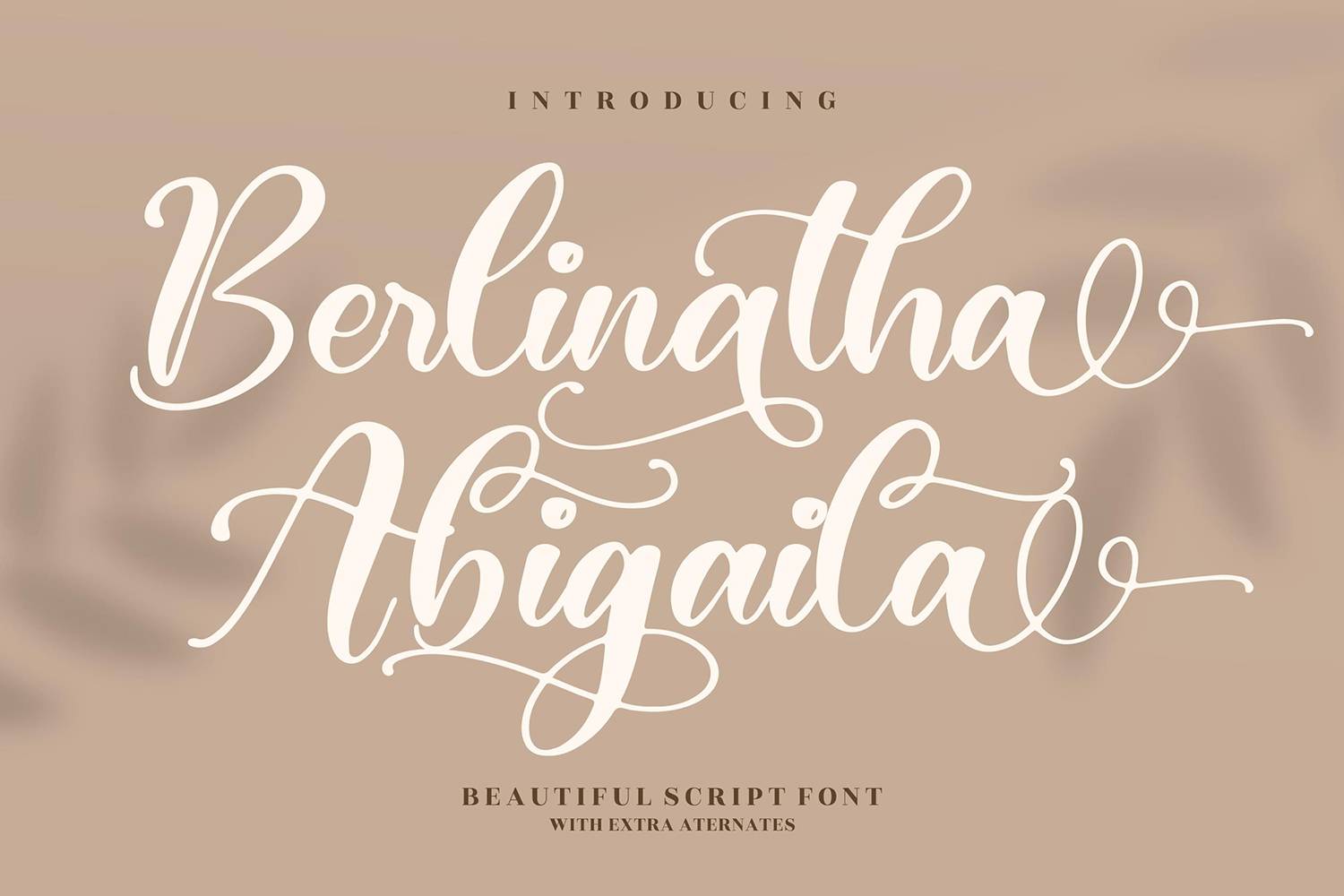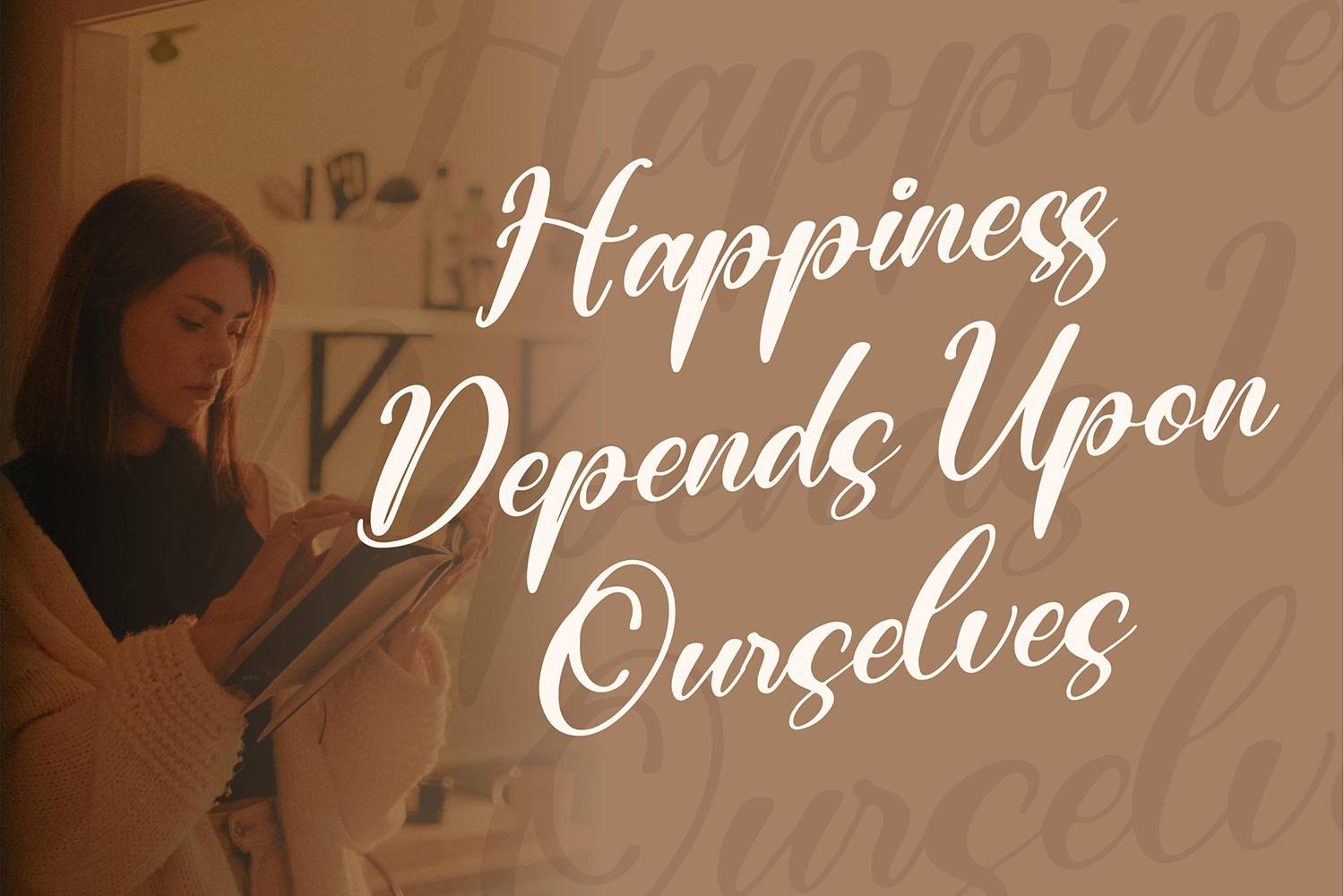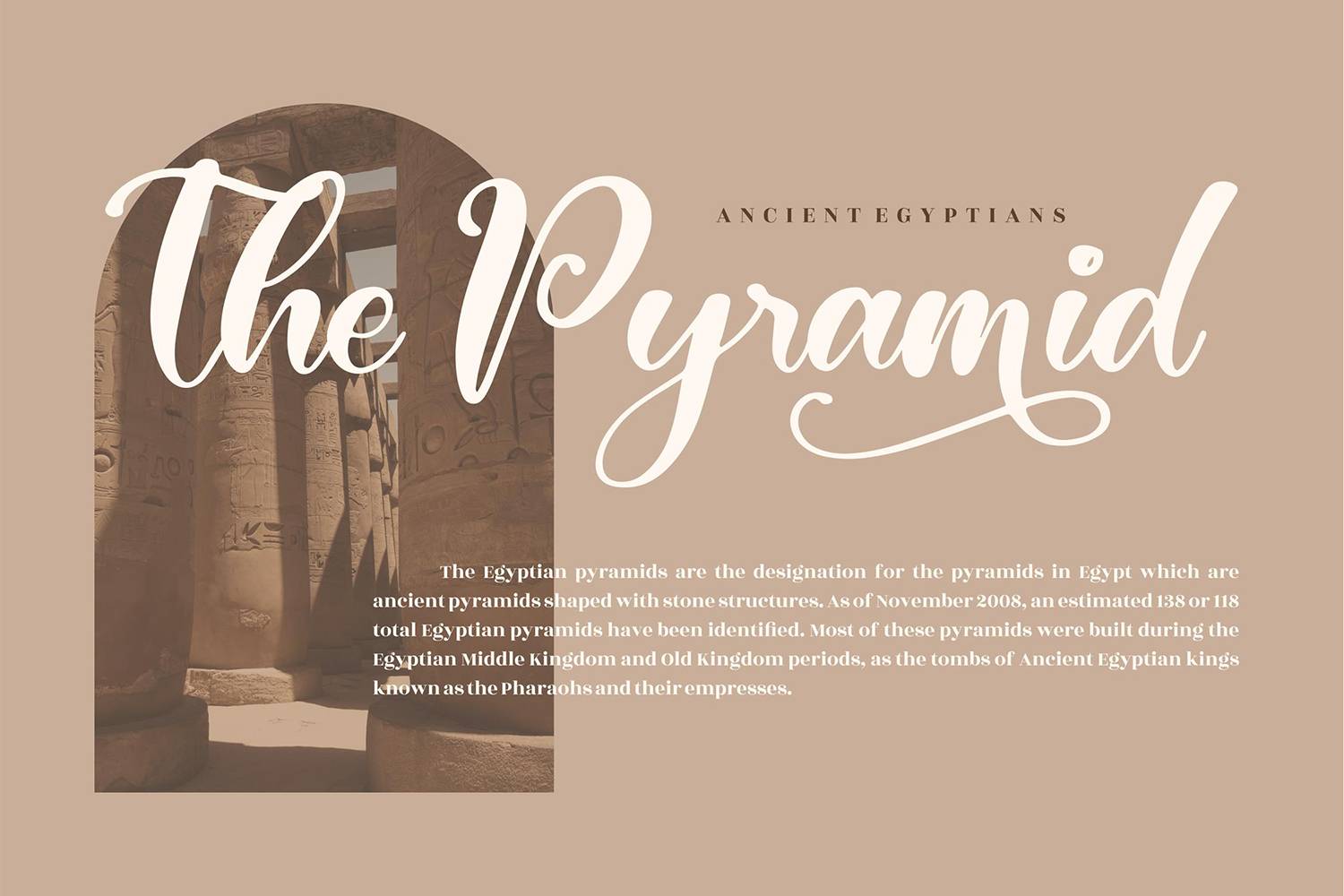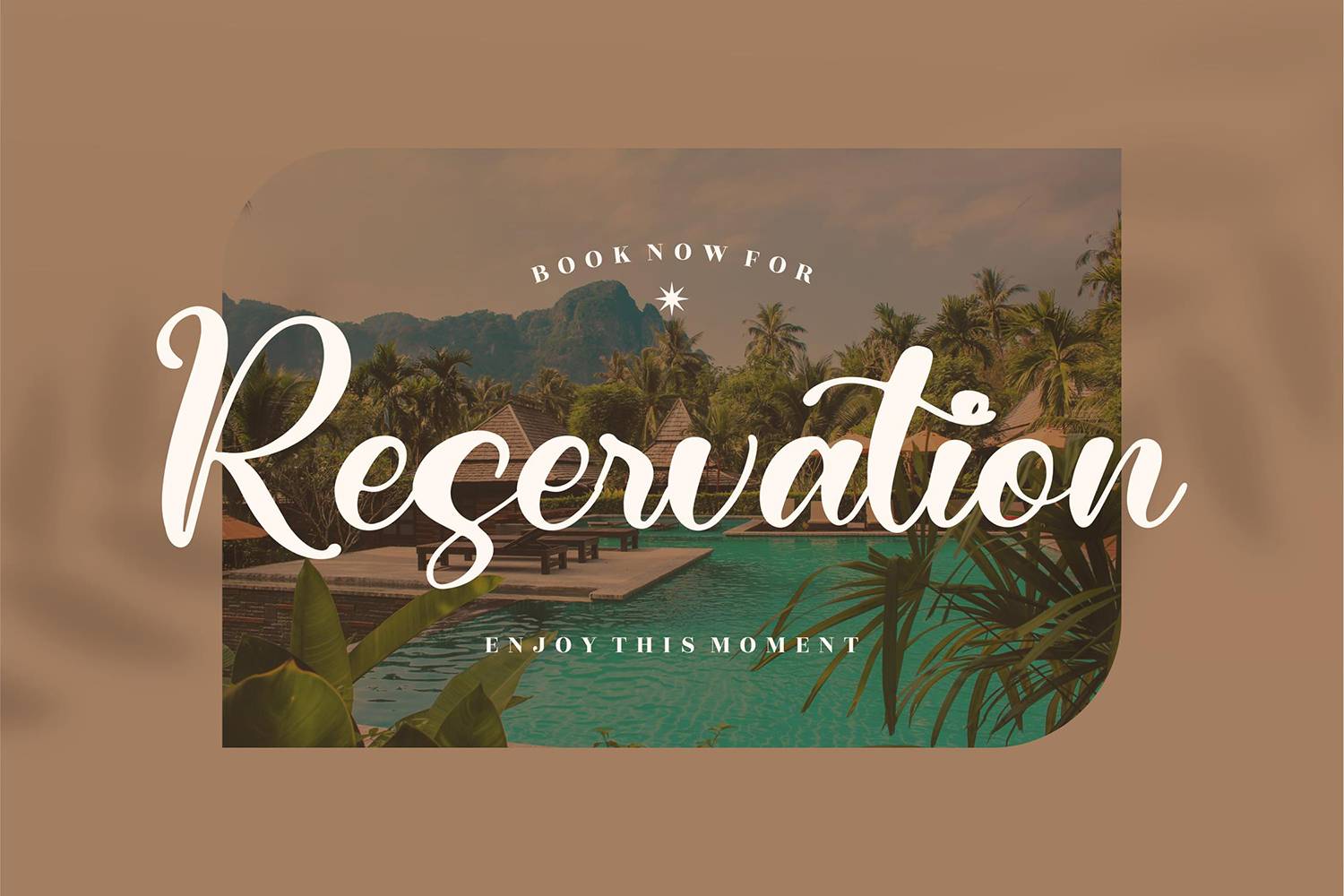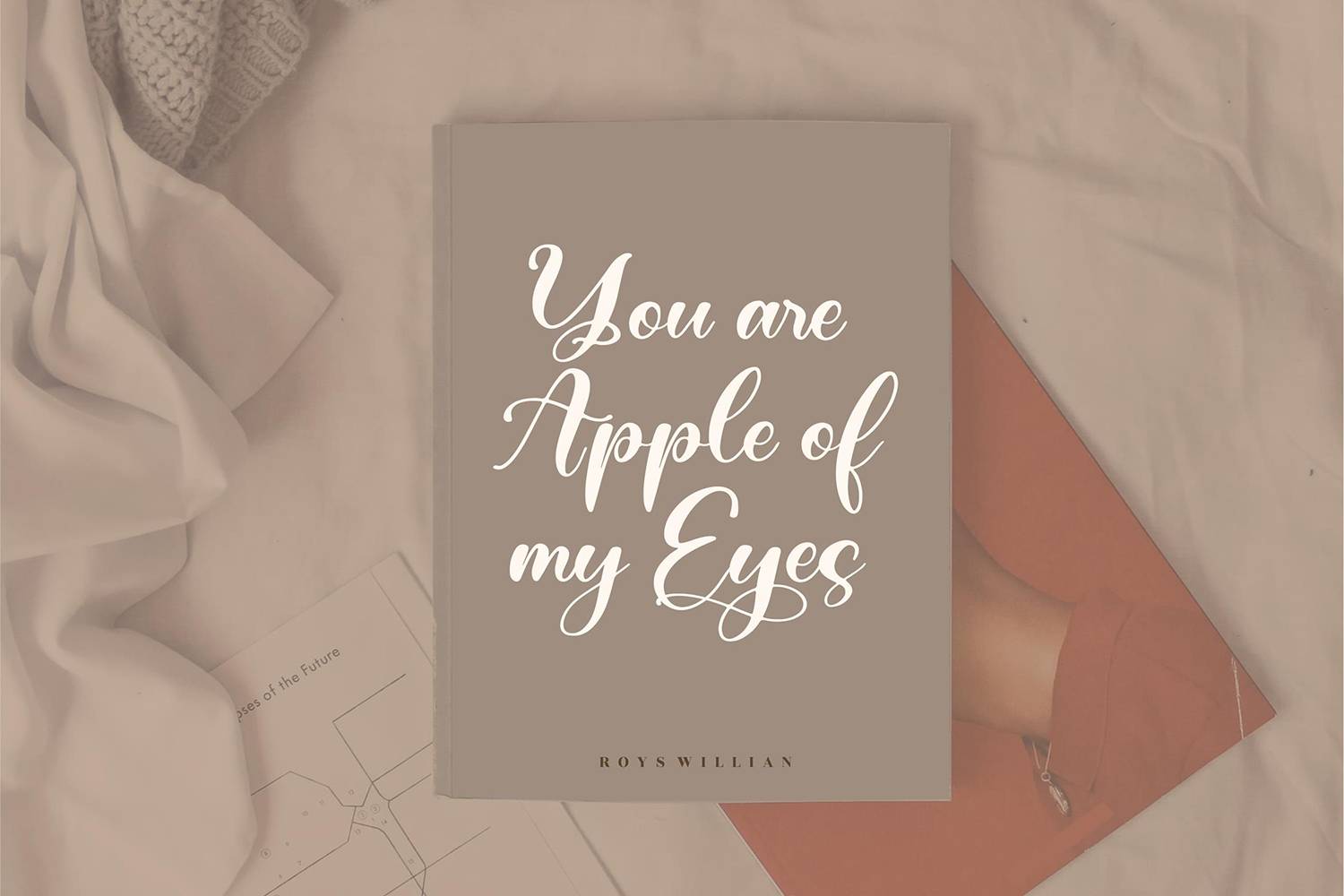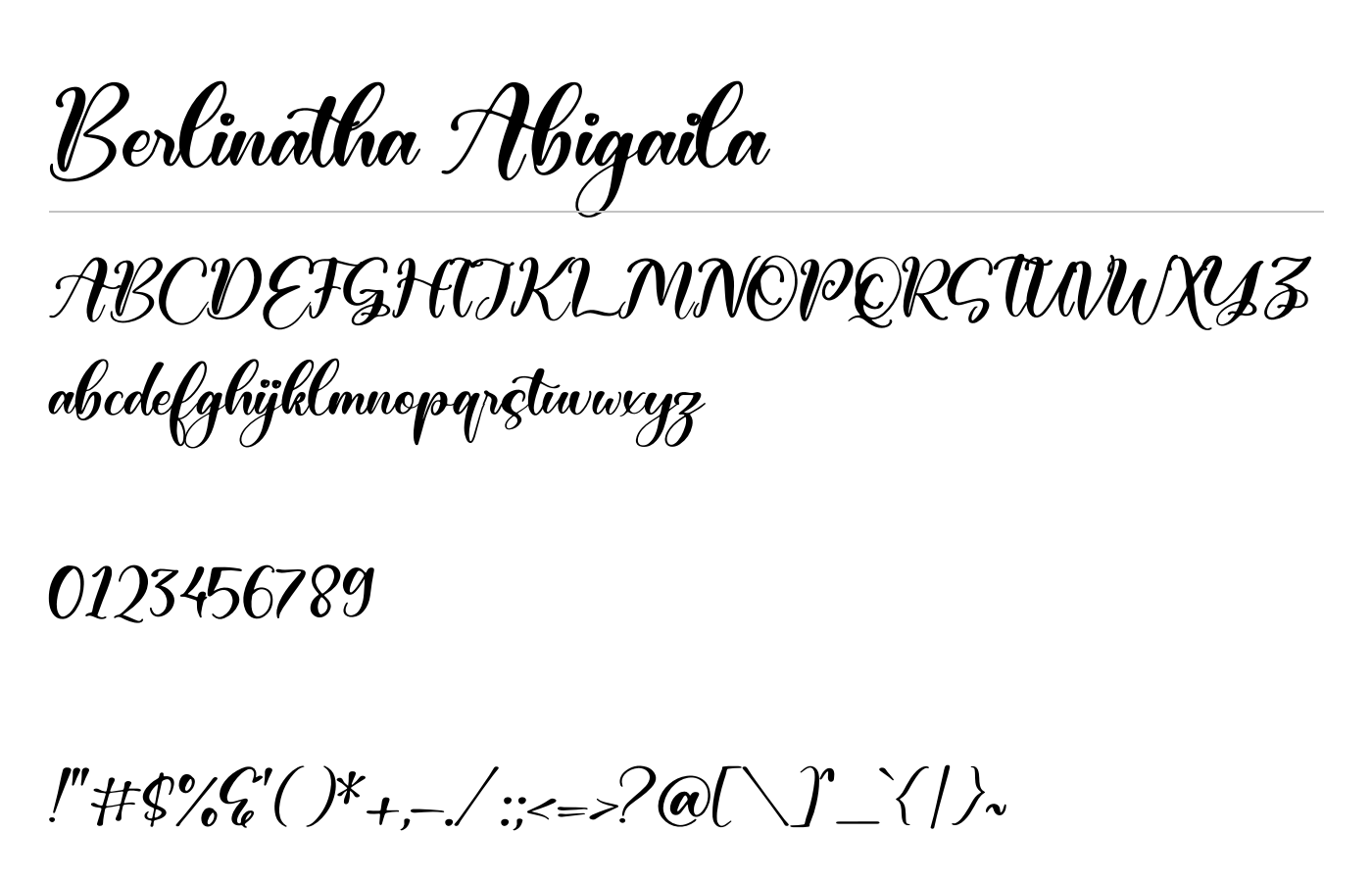
Berlinatha Abigaila is a graceful script font with a stylish, flowing design that exudes elegance and charm. Its smooth, brush-like strokes and intricate uppercase swashes make it perfect for sophisticated branding, wedding invitations, and feminine packaging. This font shines in headlines and decorative uses where a romantic, artistic feel is desired.
Berlinatha Abigaila Font
About Berlinatha Abigaila Font